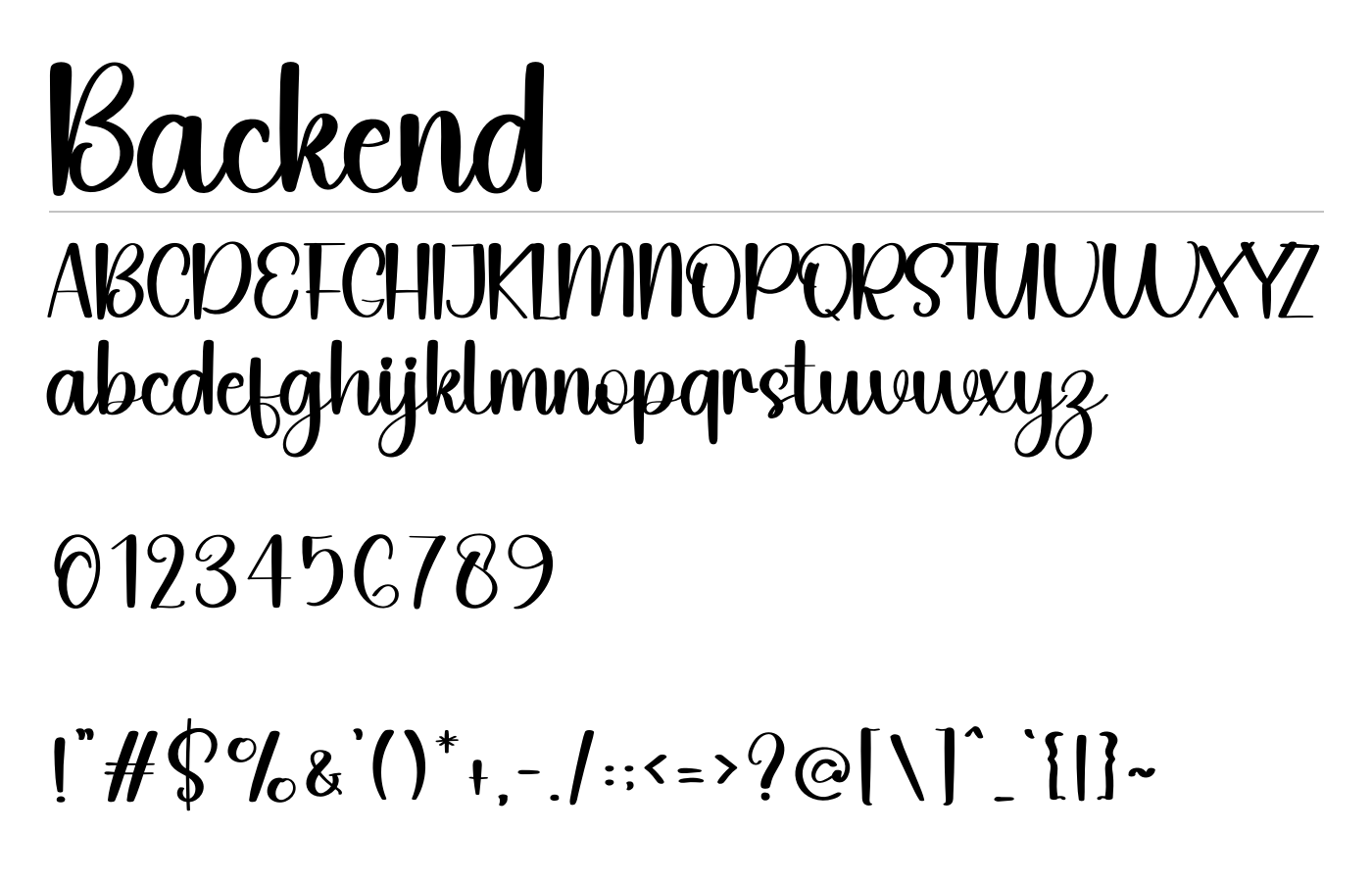
Backend Font is a playful and elegant script typeface with a lively, handwritten feel. Its smooth, rounded strokes and slightly whimsical letterforms make it perfect for creative branding, invitations, and casual editorial projects that want to convey warmth and personality. This font works well in headlines and logos where a friendly yet stylish impression is desired.
Backend Font